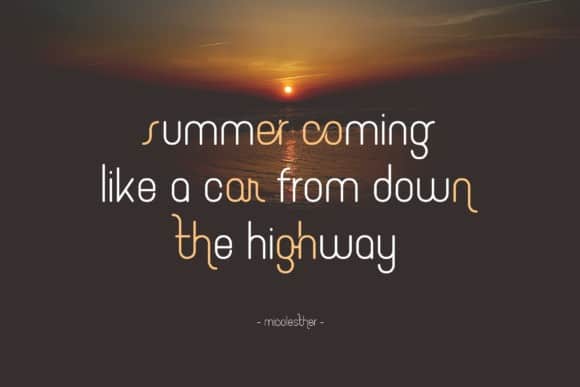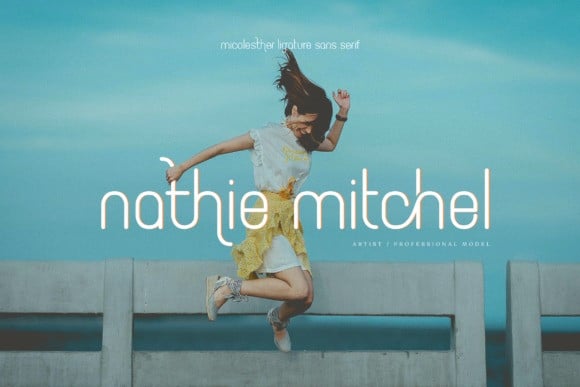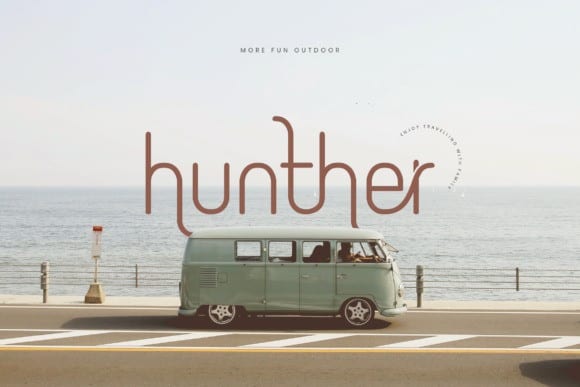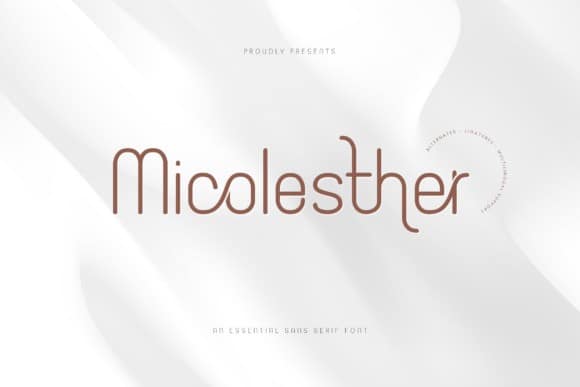
Micolesther Sans Serif Font
For those of you who are needing a touch of elegant, stylish, classy, chic and modernity for your designs, this font was created for you! This typeface is well-balanced modern rounded font with beautiful ligatures. Included upercase, lowercase, numeral punctuation, mutlilingual support, alternates and ligatures. With moderate contrast that perfect for branding projects, logo, wedding designs, social media posts, advertisements, product packaging, product designs, label, photography, watermark, invitation, stationery, and any projects, it makes with a high level of legibility.